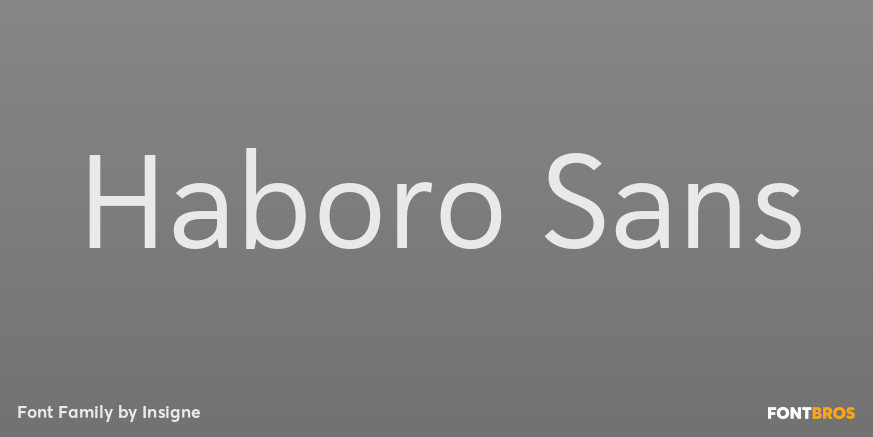
Haboro Sans
About Haboro Sans
Quit trudging through the thick with encumbering fonts, and spring to the front of the pack with the cutting edge sans serif, Haboro Sans. With nothing to clutter up your work, your editorial designs, websites, and software will be sharp and clear. While…